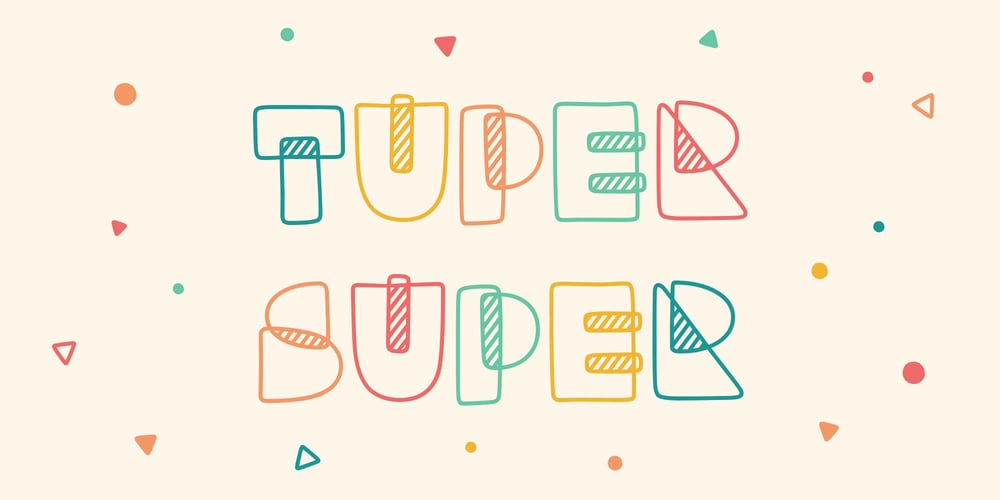
Tuper Super Font Family was designed by Lauren Ashpole and published by Lauren Ashpole. Tuper Super contains 1 styles and family package options. Tuper Super is a playful font designed with casual projects and children’s products in mind. Each character is made up of stacked, hand-drawn geometric shape outlines with diagonal shading in the overlaps. For the best effect, I’d recommend larger display sizing for legibility.